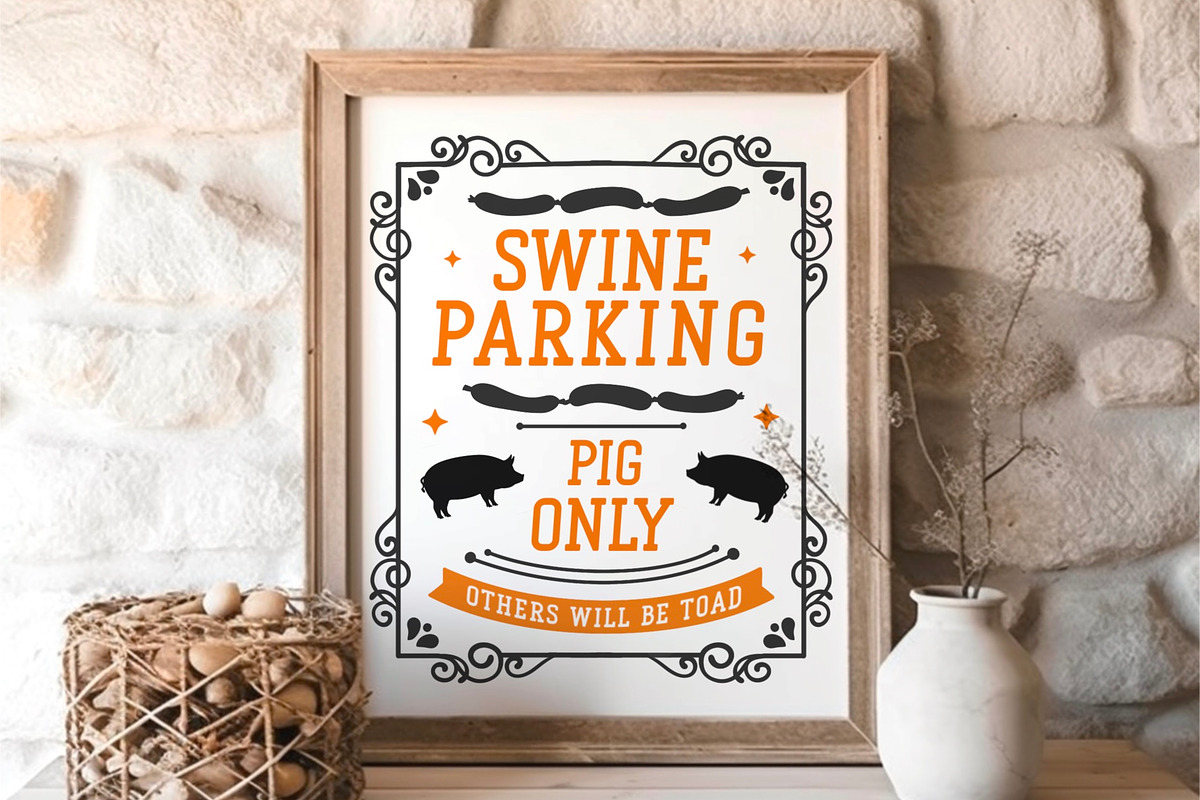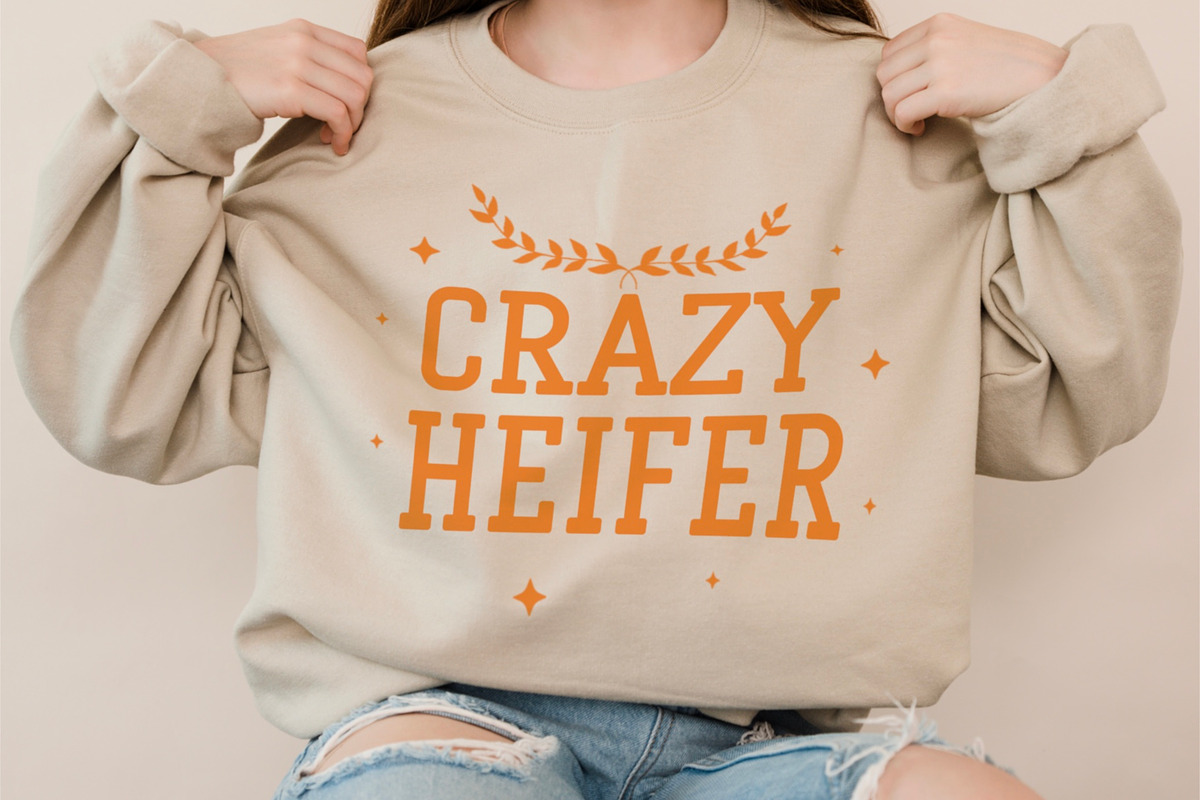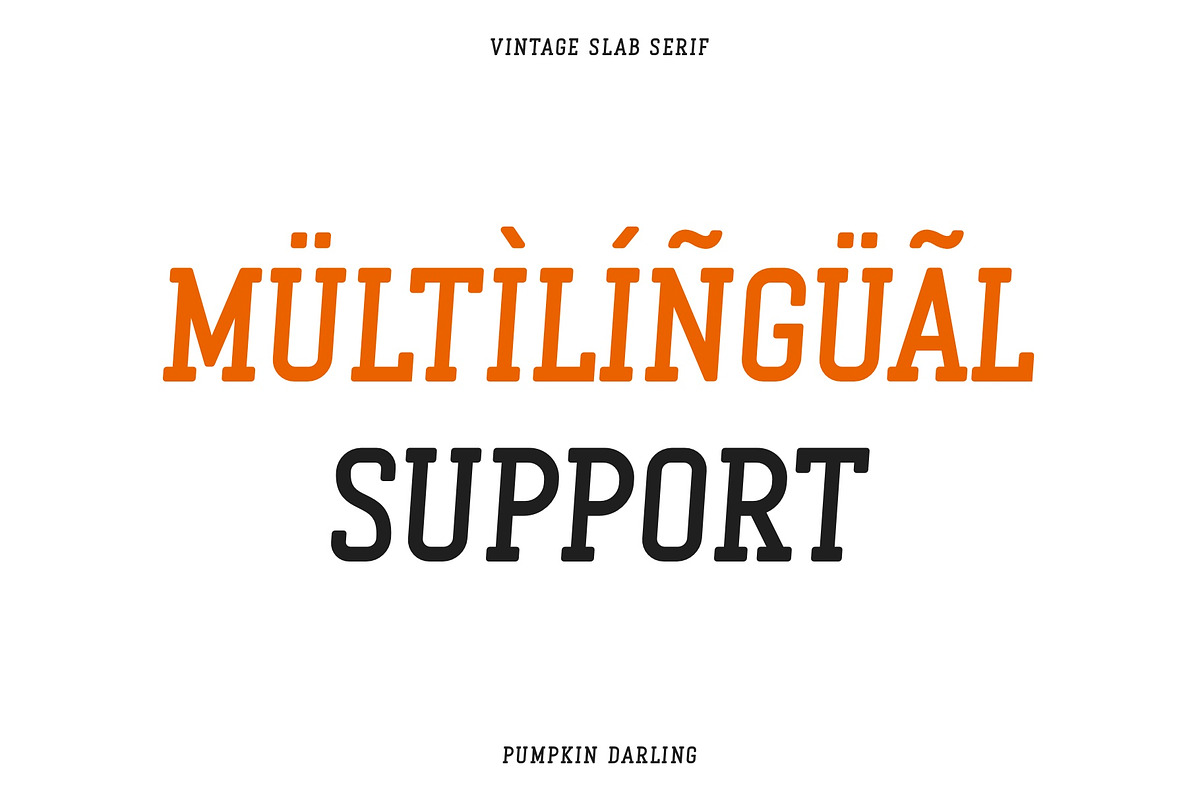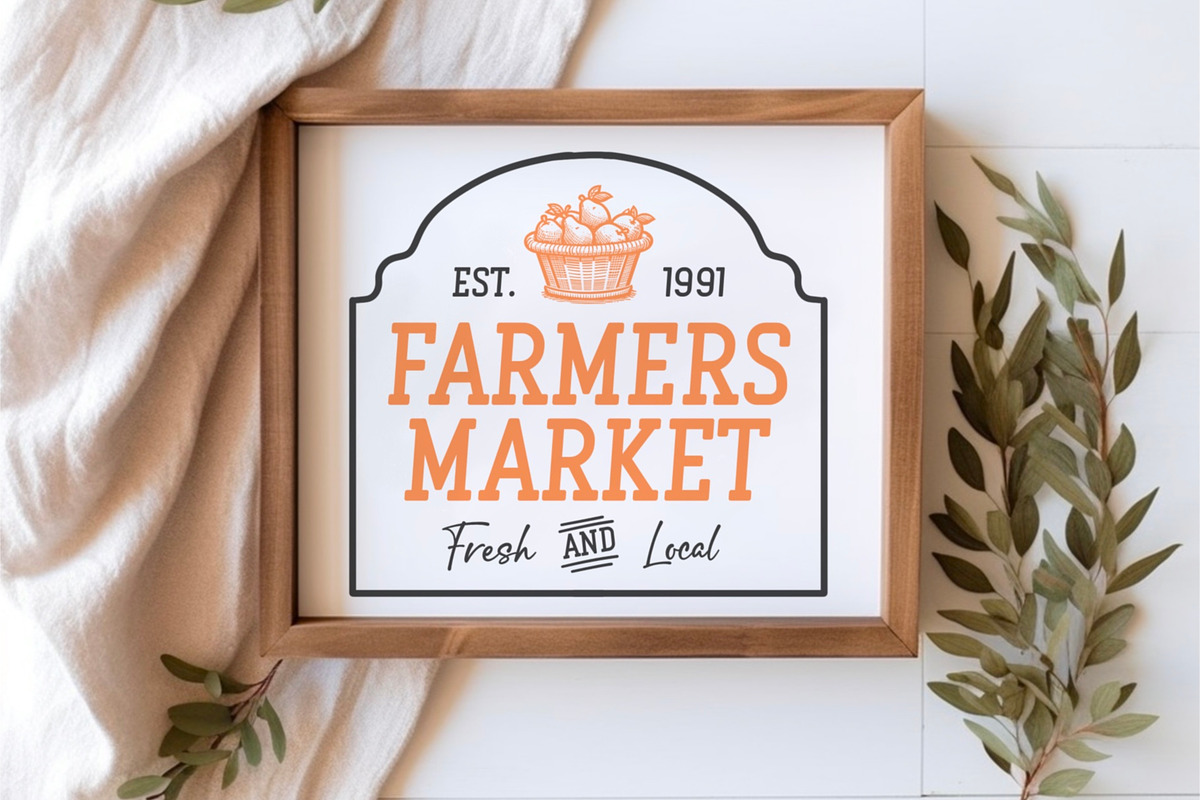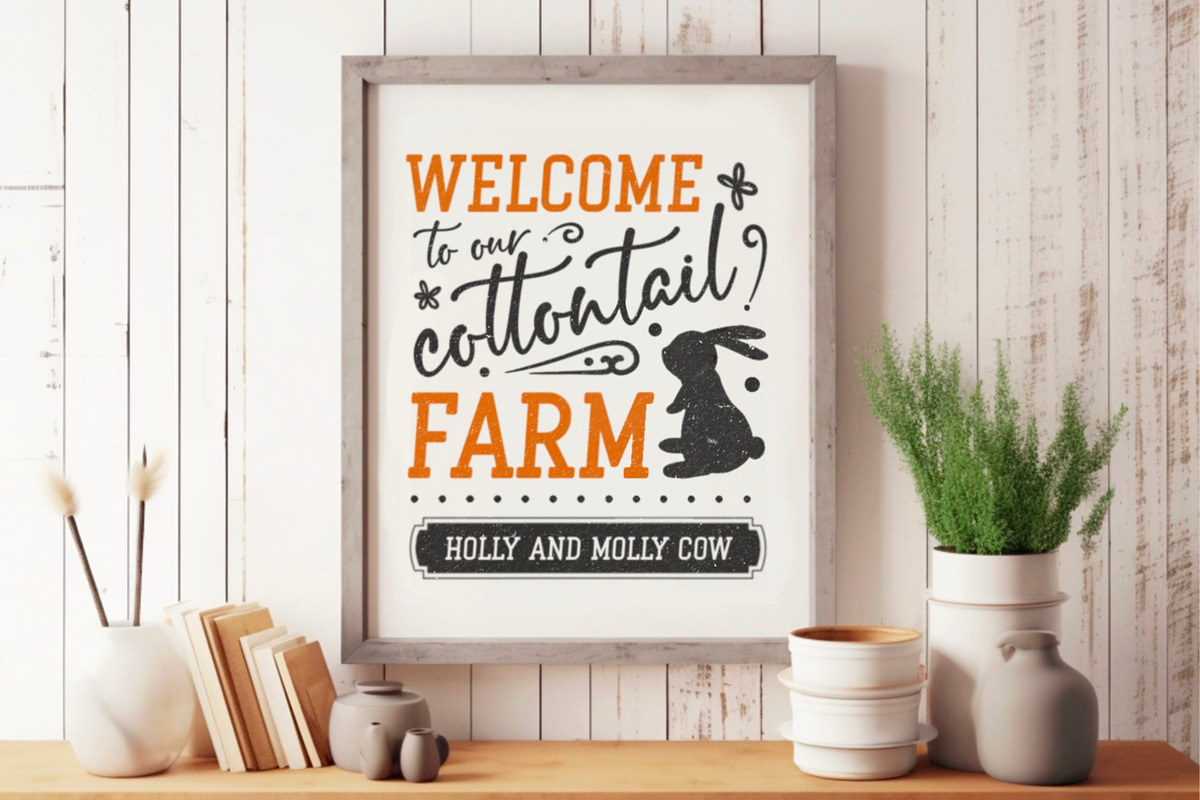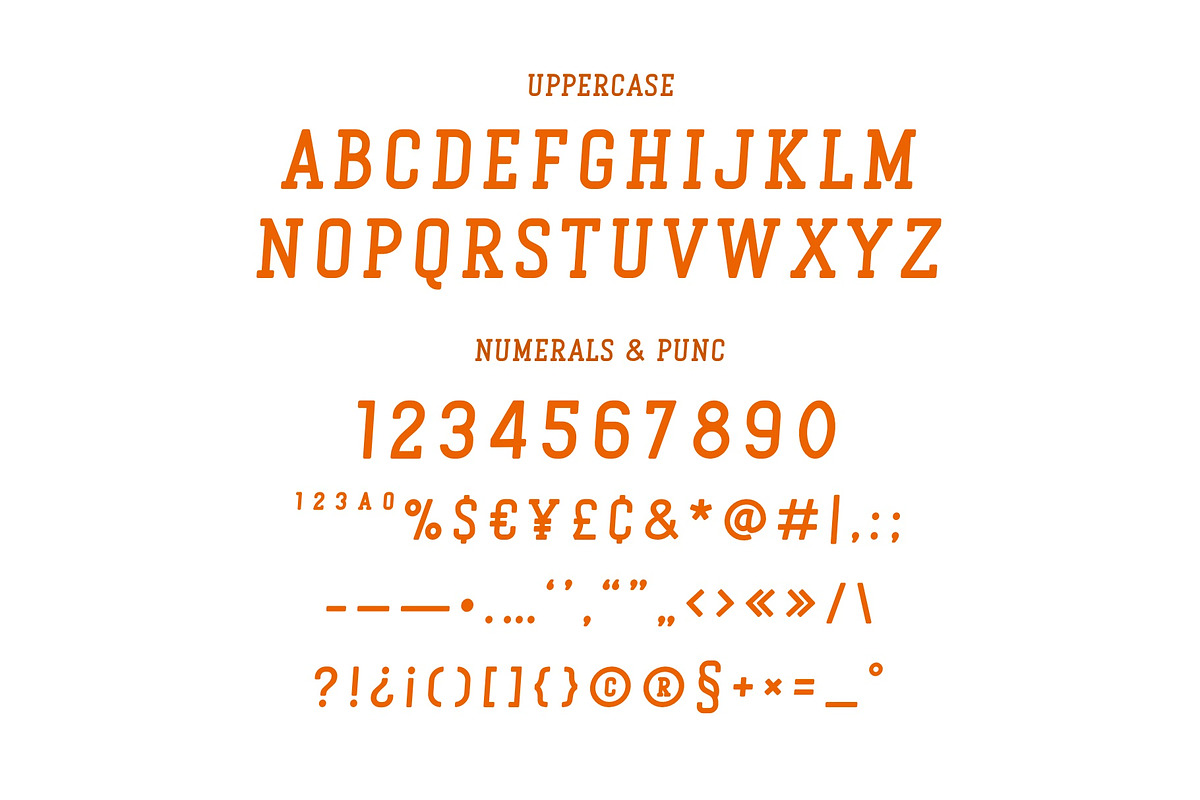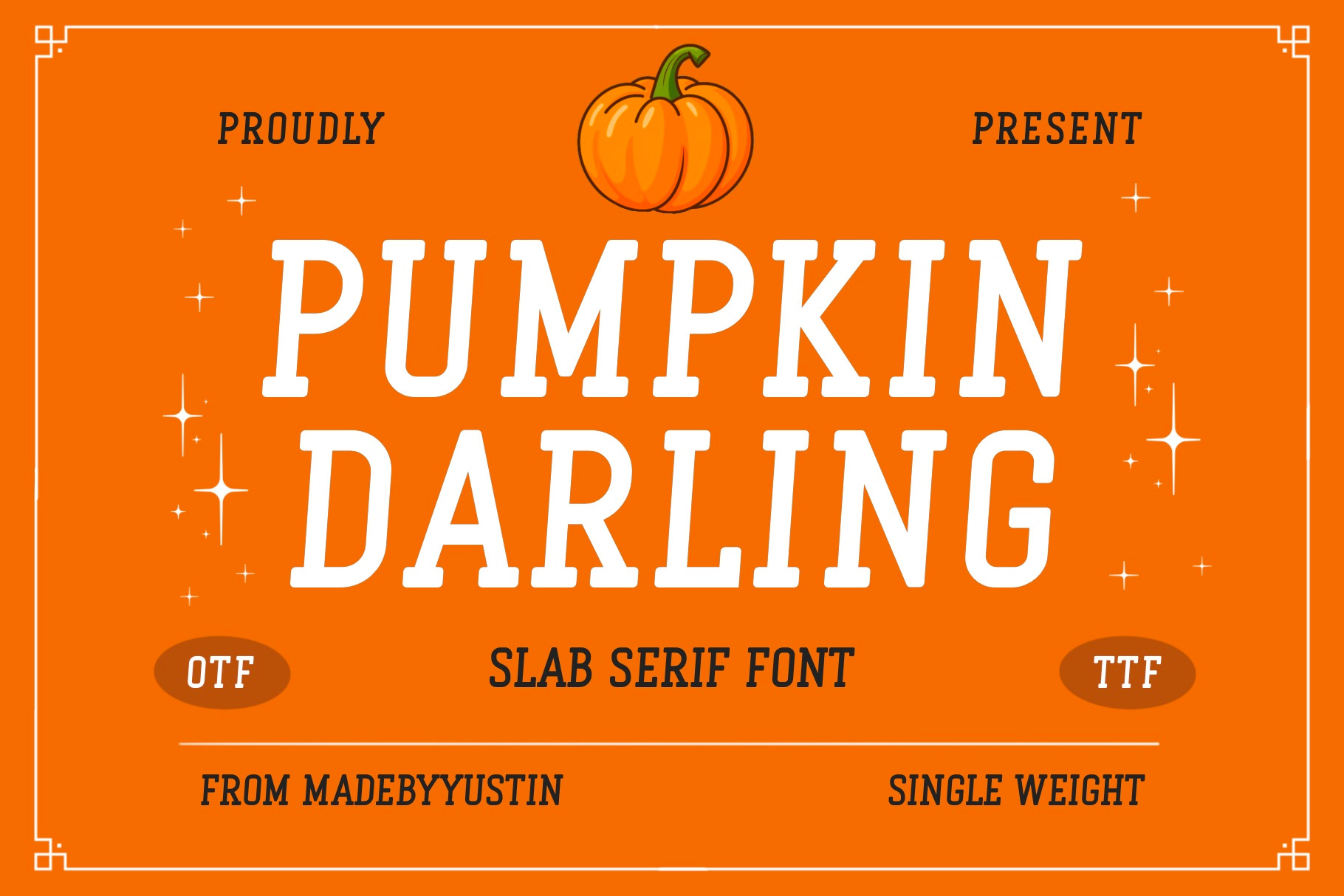
Pumpkin Darling - Slab Serif Font
Pumpkin Darling is a slab serif font style product that exudes a playful and whimsical vibe. It features thick, bold lines and rounded edges, which give it a charming and approachable appearance. The slab serifs are prominent and give the font a sturdy and confident feel. The letterforms are easy to read, making it a great choice for titles, headlines, and posters.
The font also has a unique vintage touch, making it perfect for projects with a nostalgic or retro theme. Overall, Pumpkin Darling is a fun and versatile font that can add character and personality to any design project.